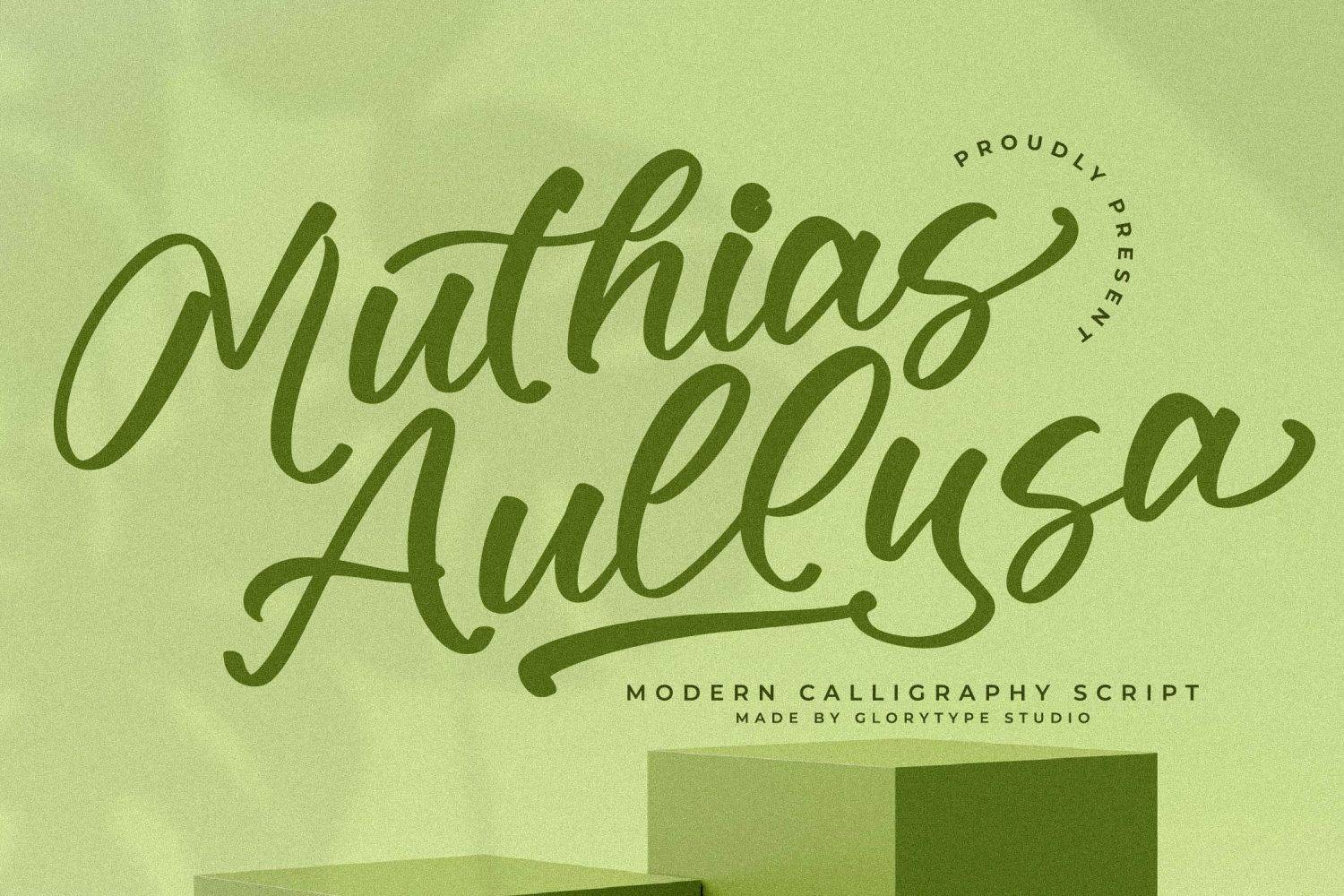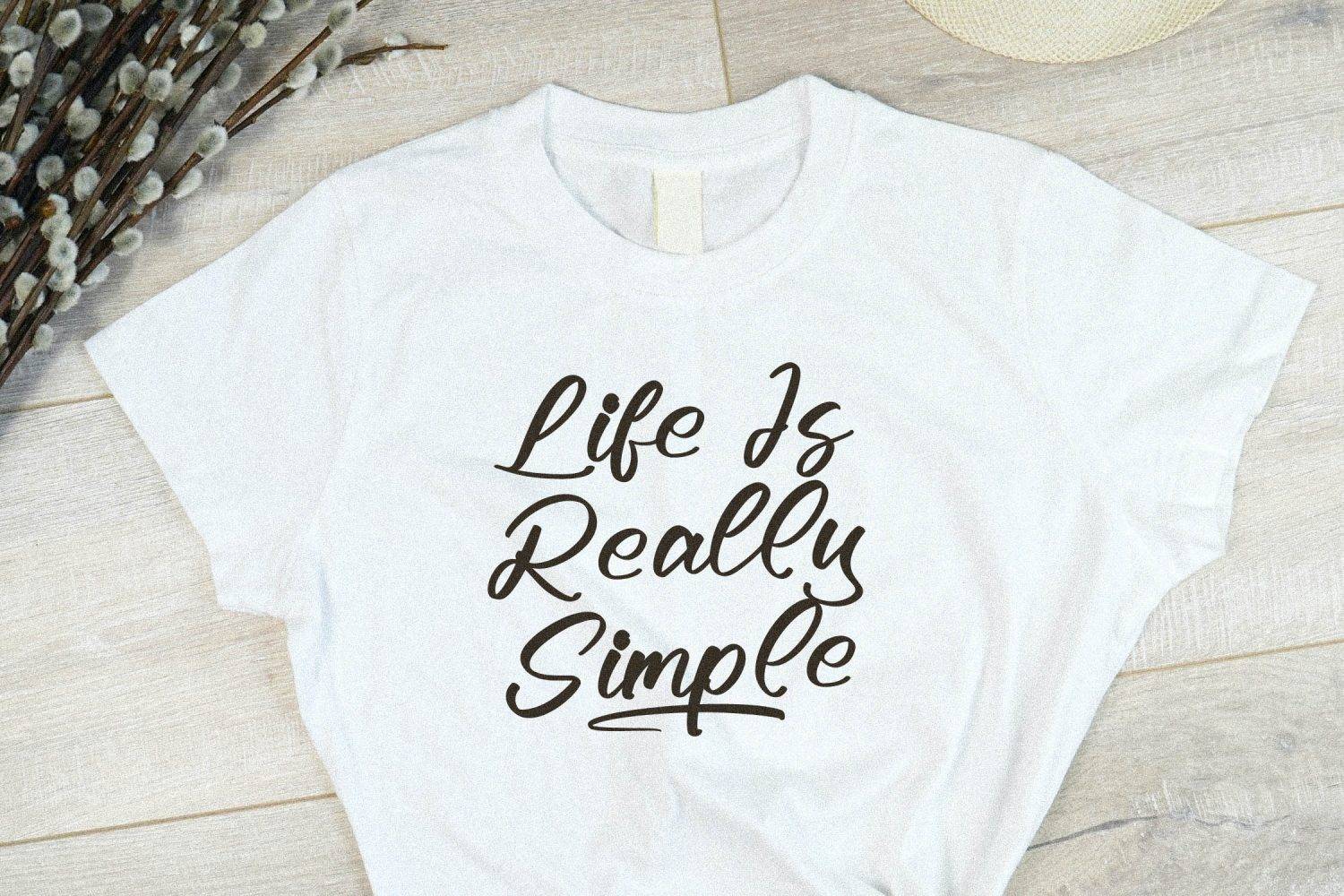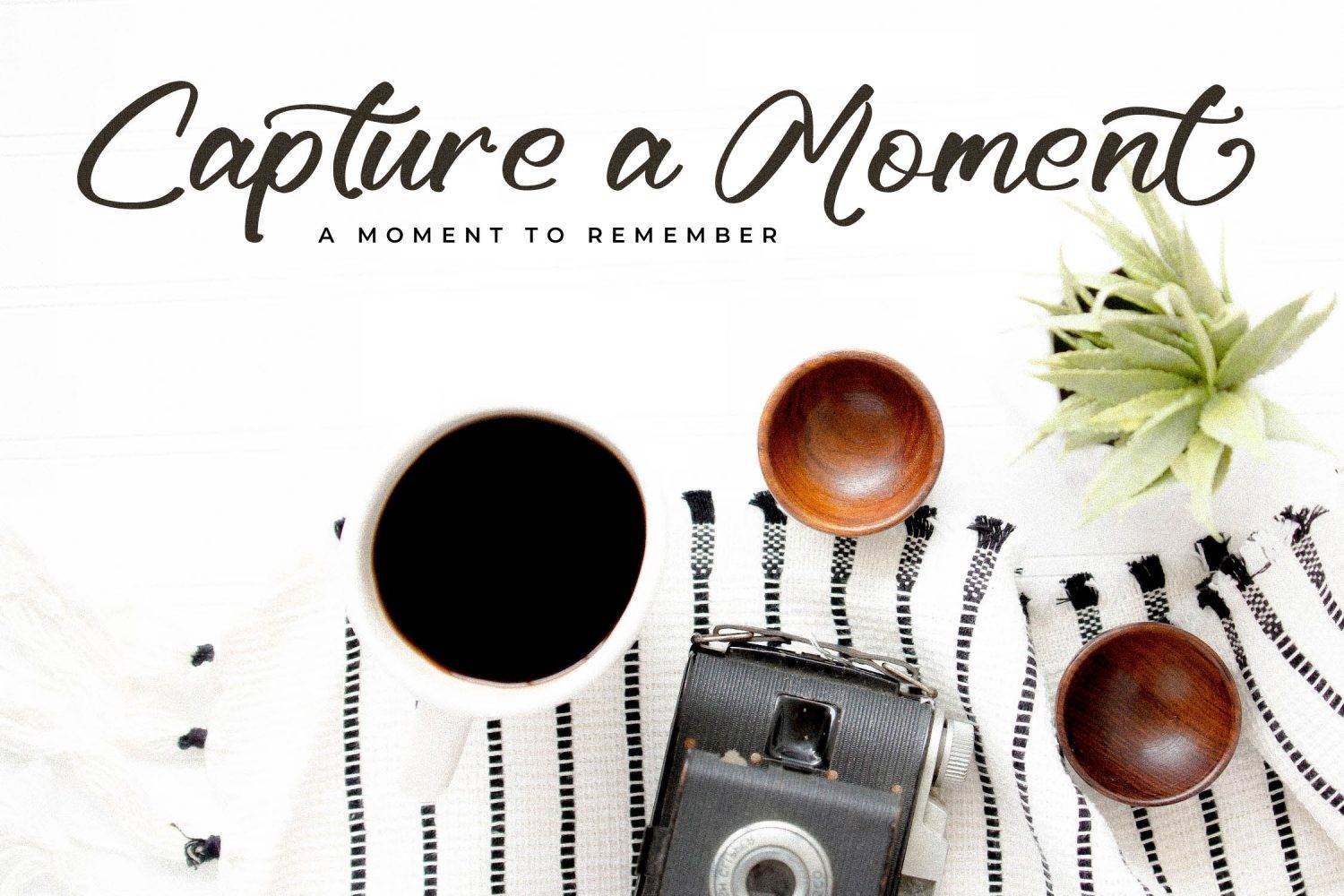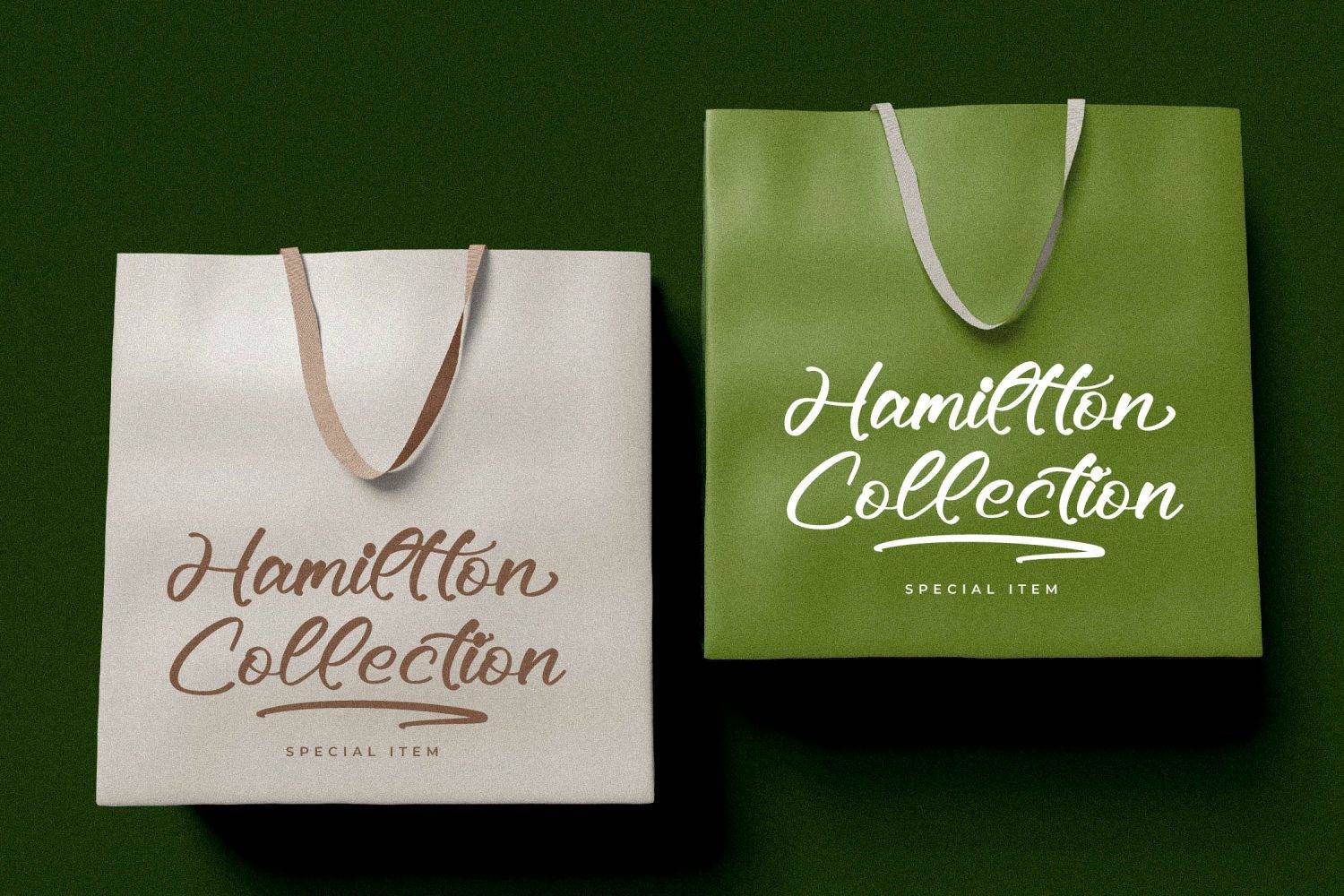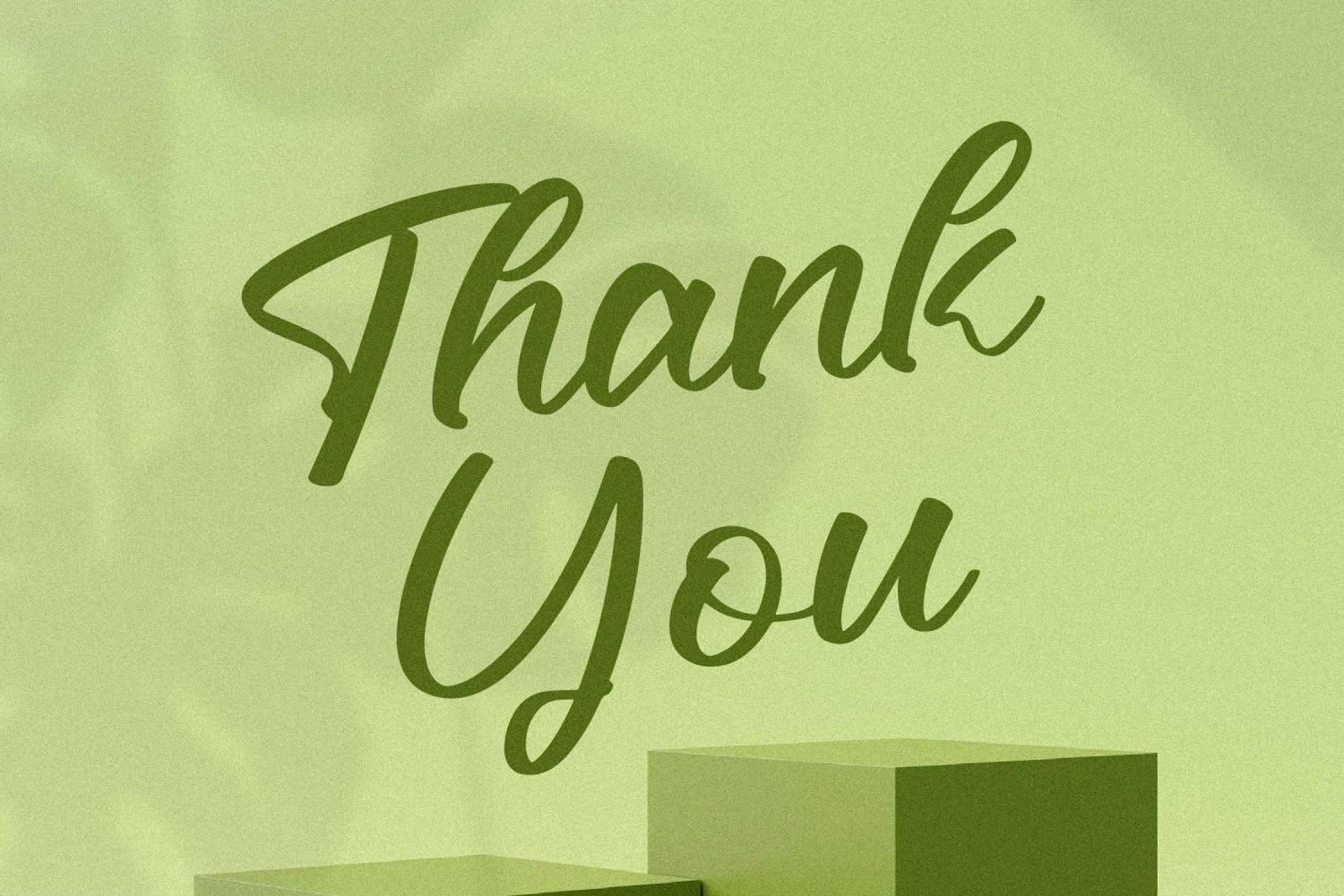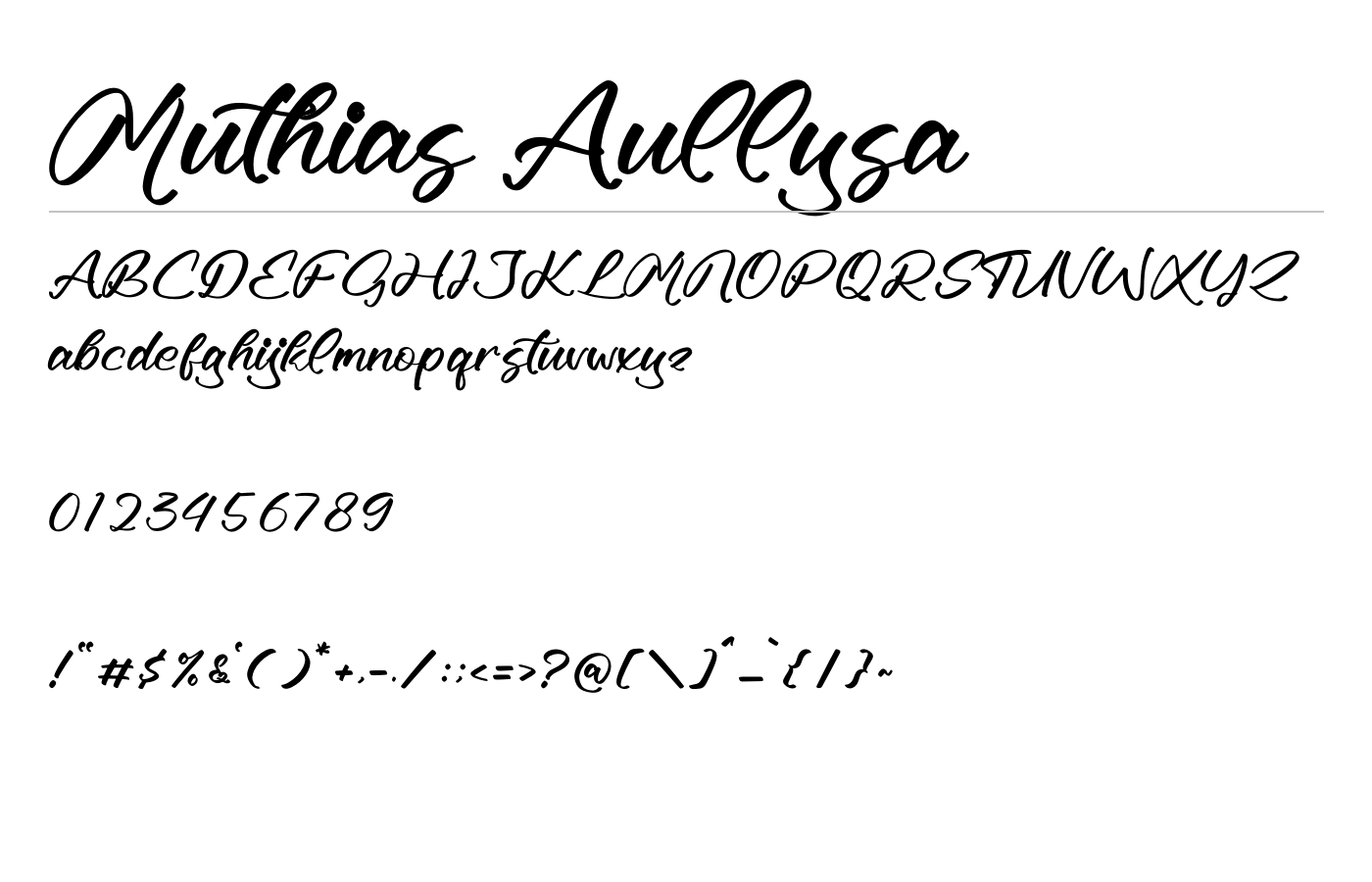
Muthias Aullysa is a lively and elegant script font featuring smooth, flowing strokes that mimic natural handwriting with a slightly casual, playful flair. Its moderate weight and fluid letterforms work beautifully for invitations, branding, and creative projects that seek a personal, artistic touch while maintaining readability and charm. This font shines in designs where a warm, approachable, and stylish personality is desired.
Muthias Aullysa Font
About Muthias Aullysa Font